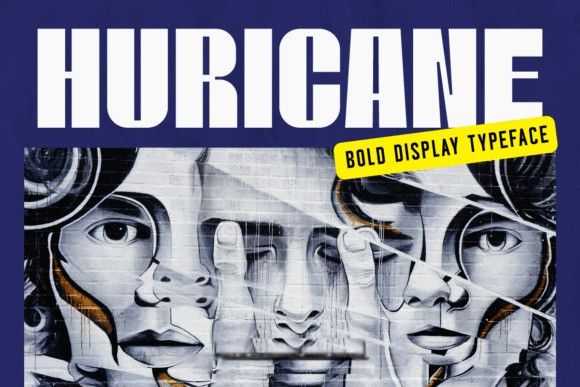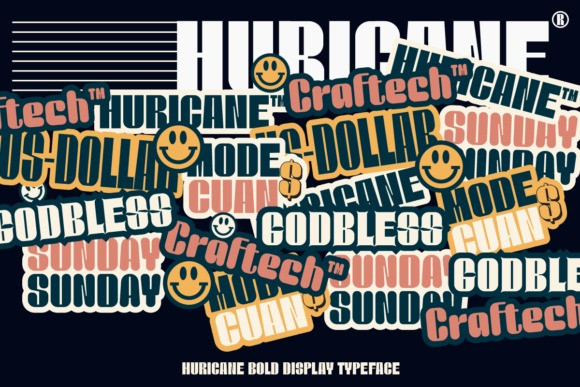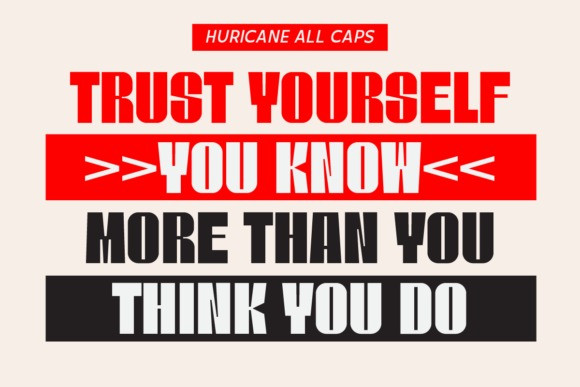
Huricane Font
Huricane is a bold and dashing cubic mechanical display font with a futuristic look. It’s a lot of fun with a bold personality. The font looks modern and elegant and it’s perfect when applied to your logo, brand, title, packaging, or whatever your creativity brings.